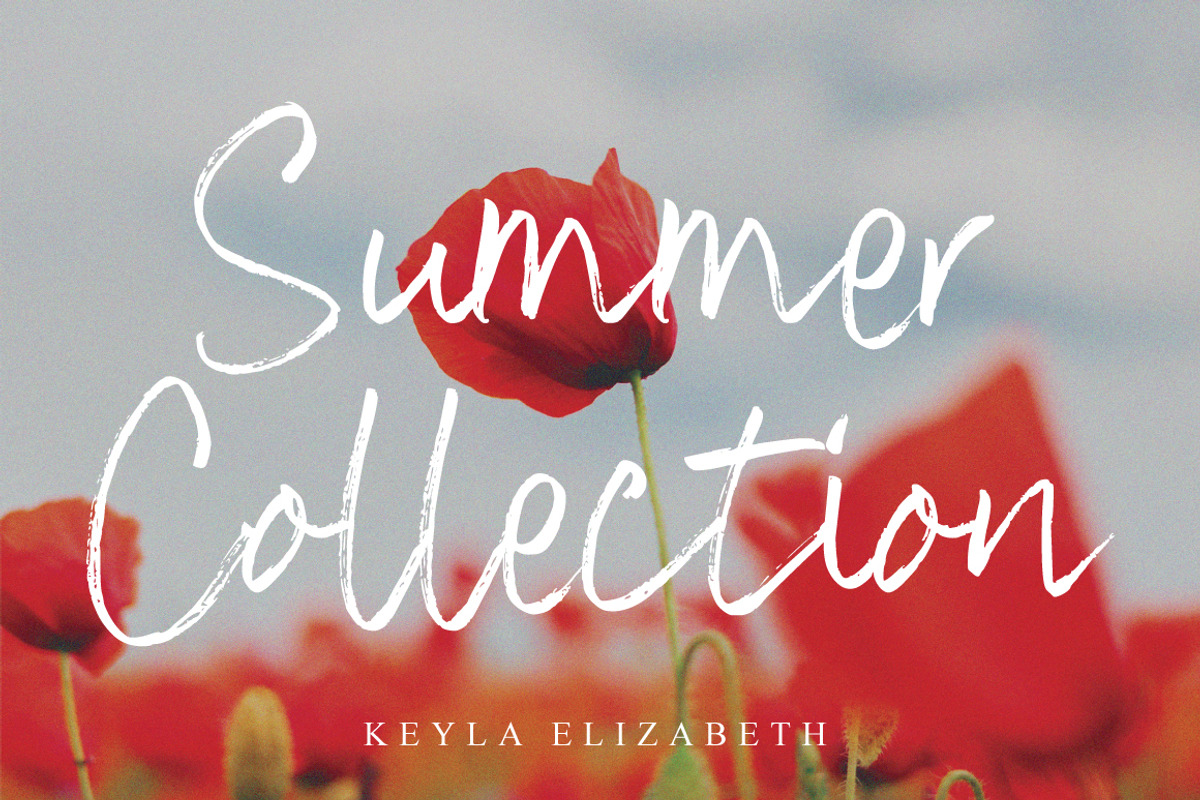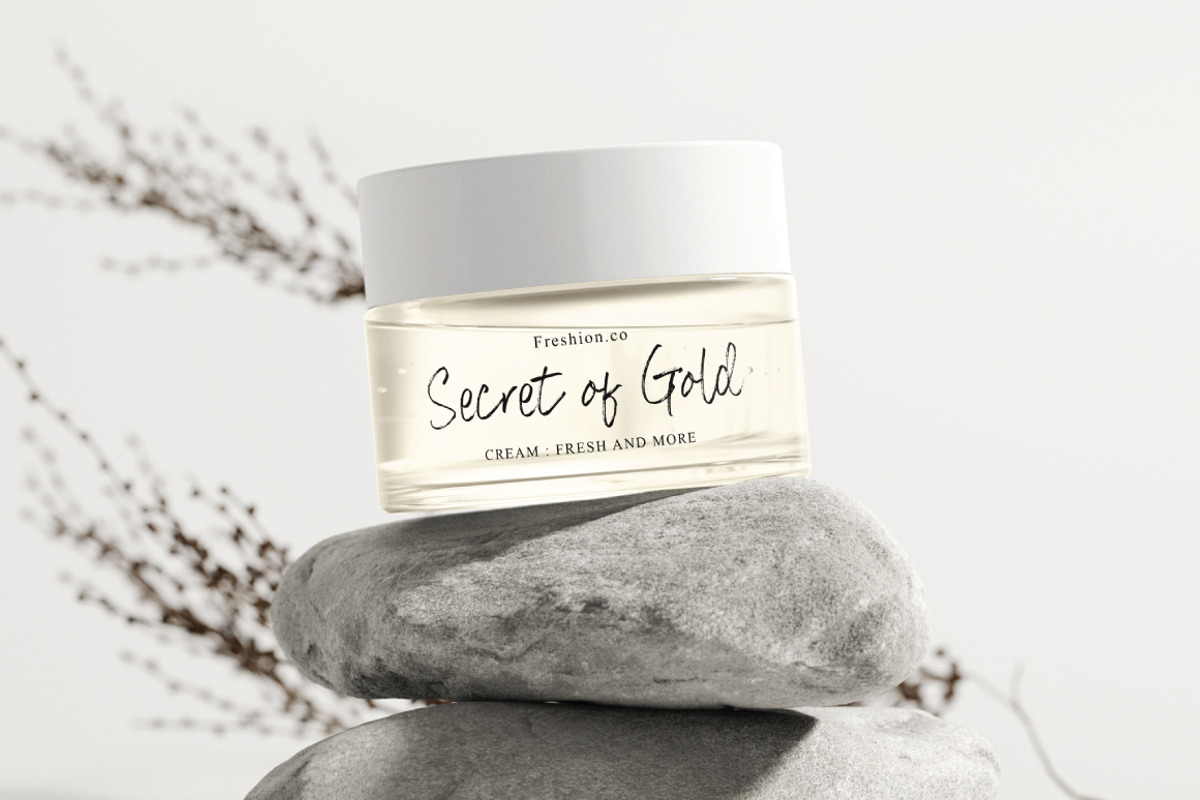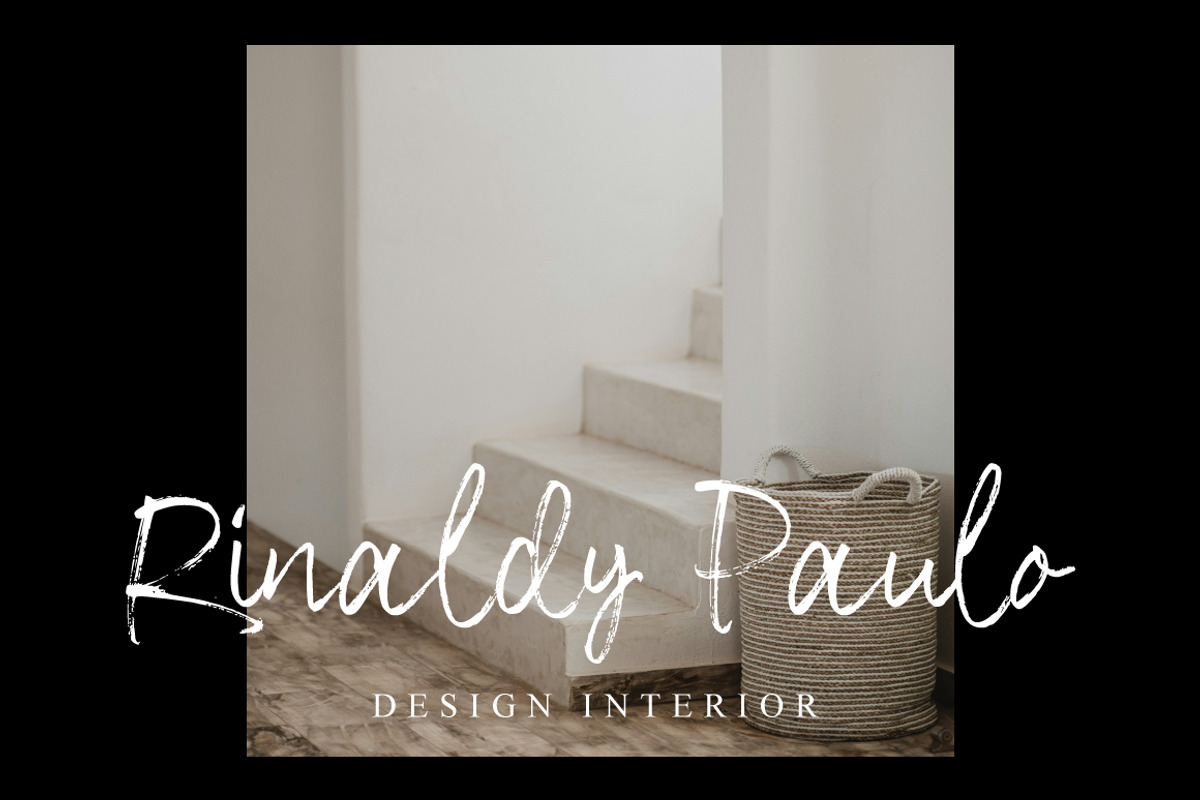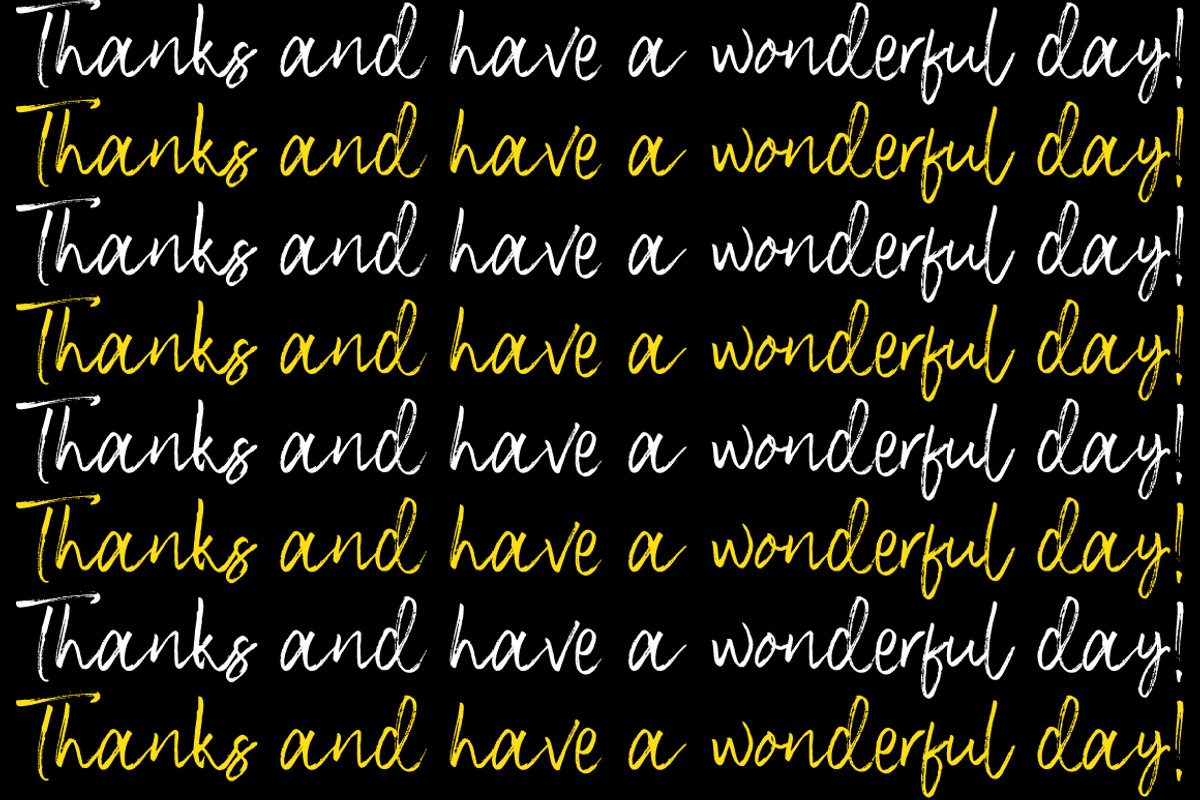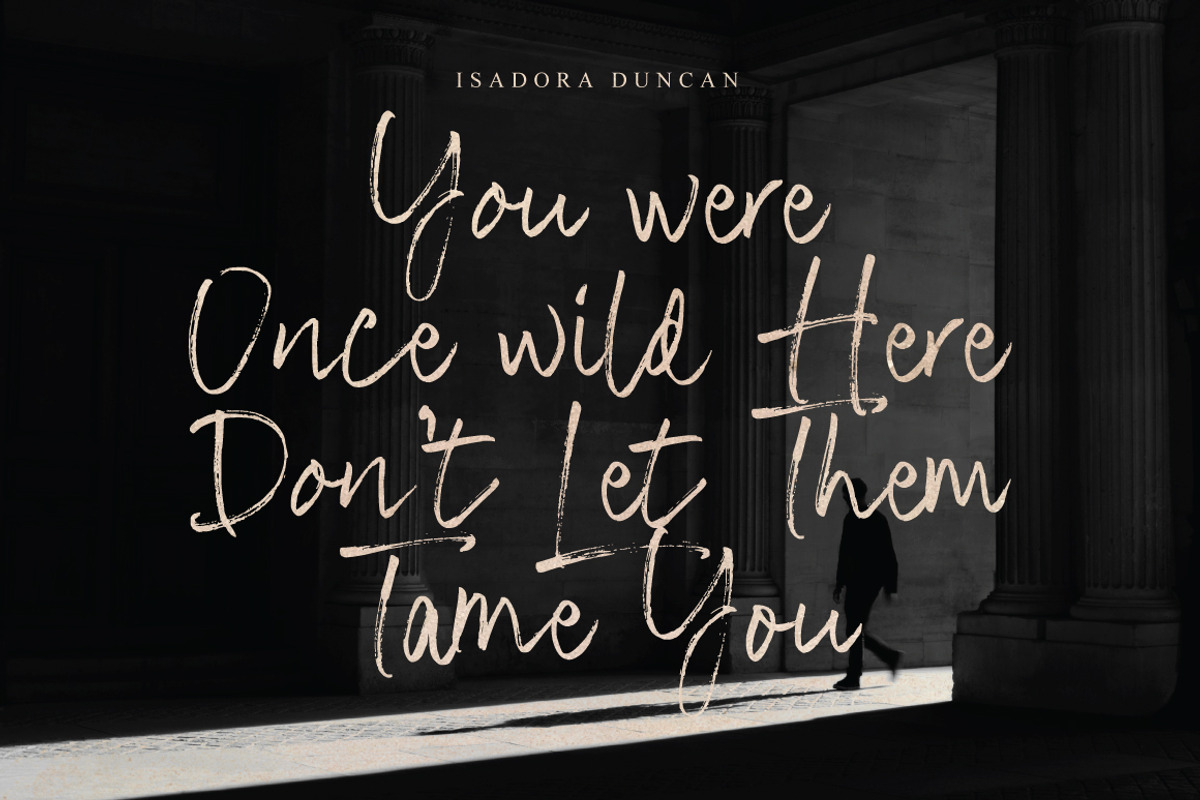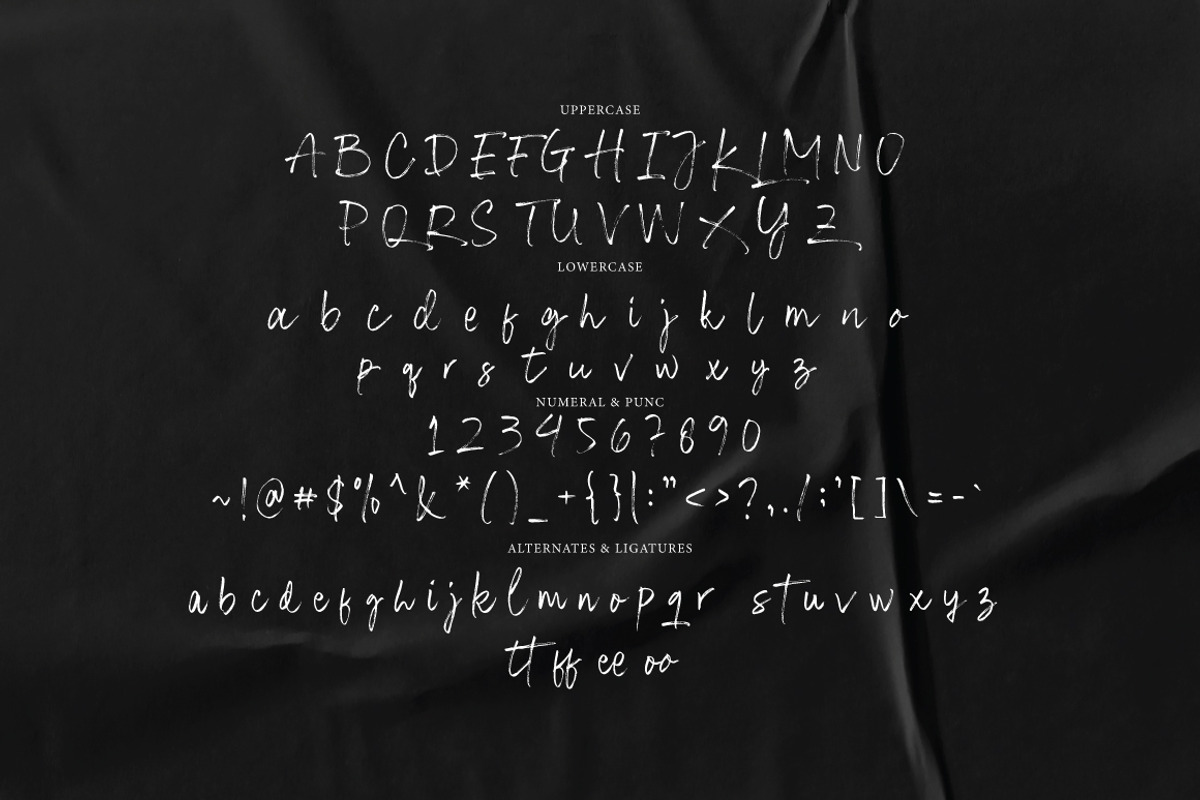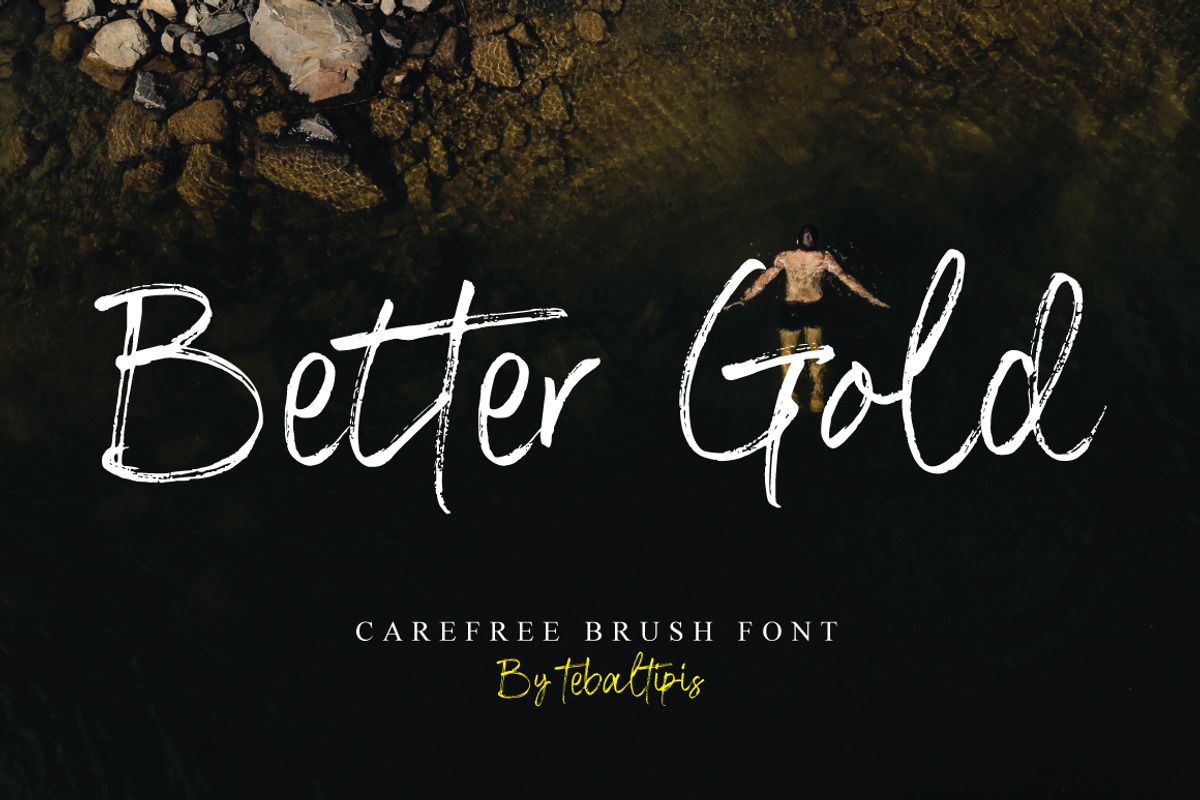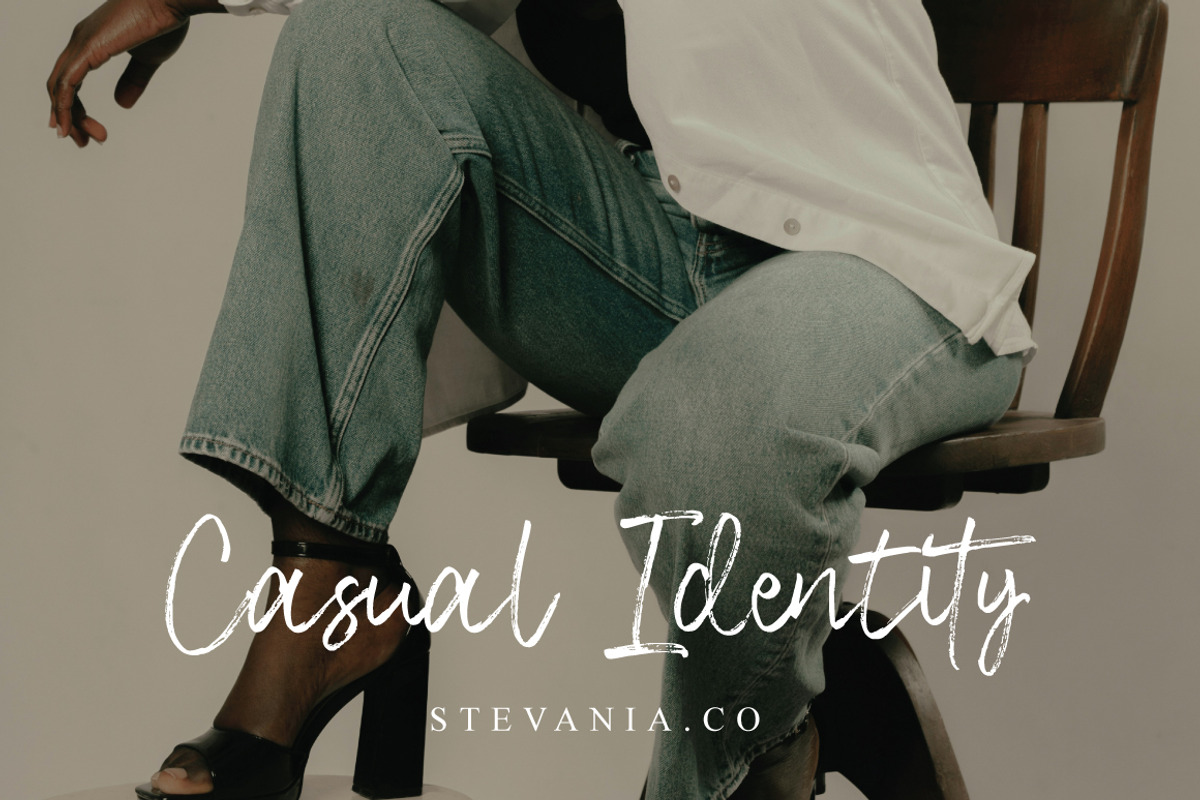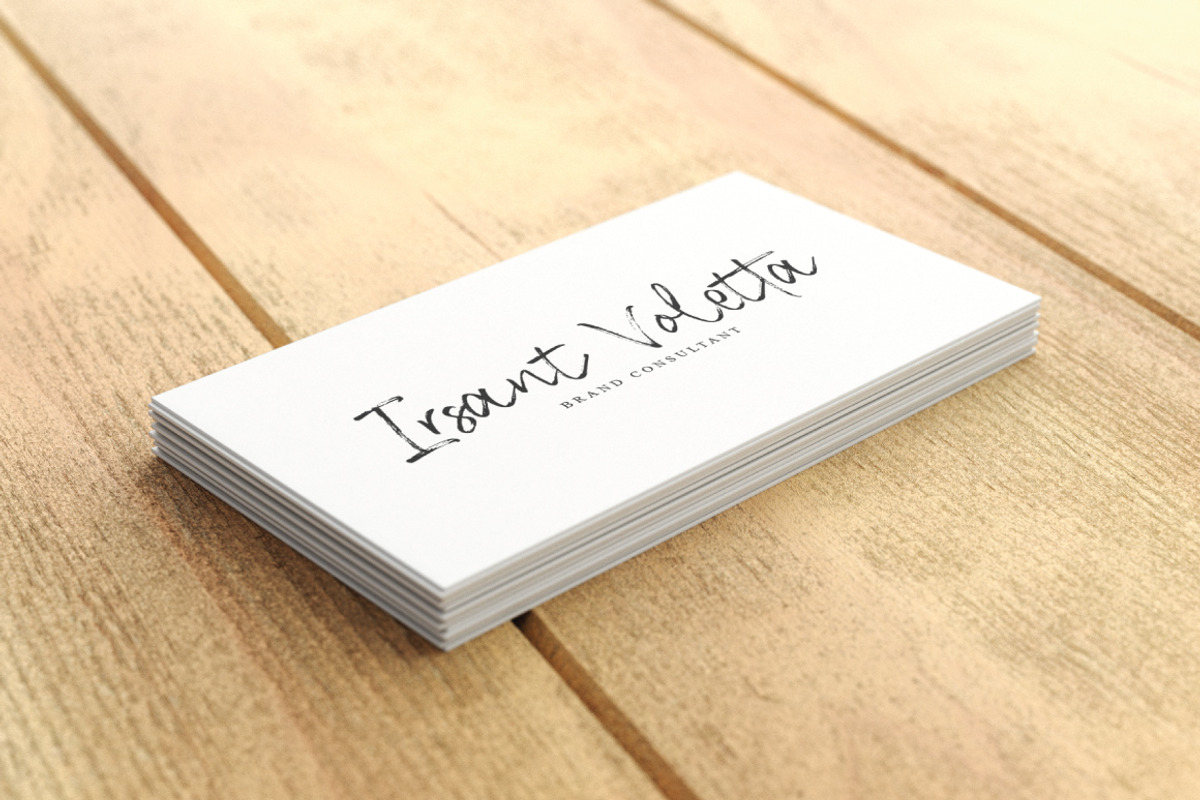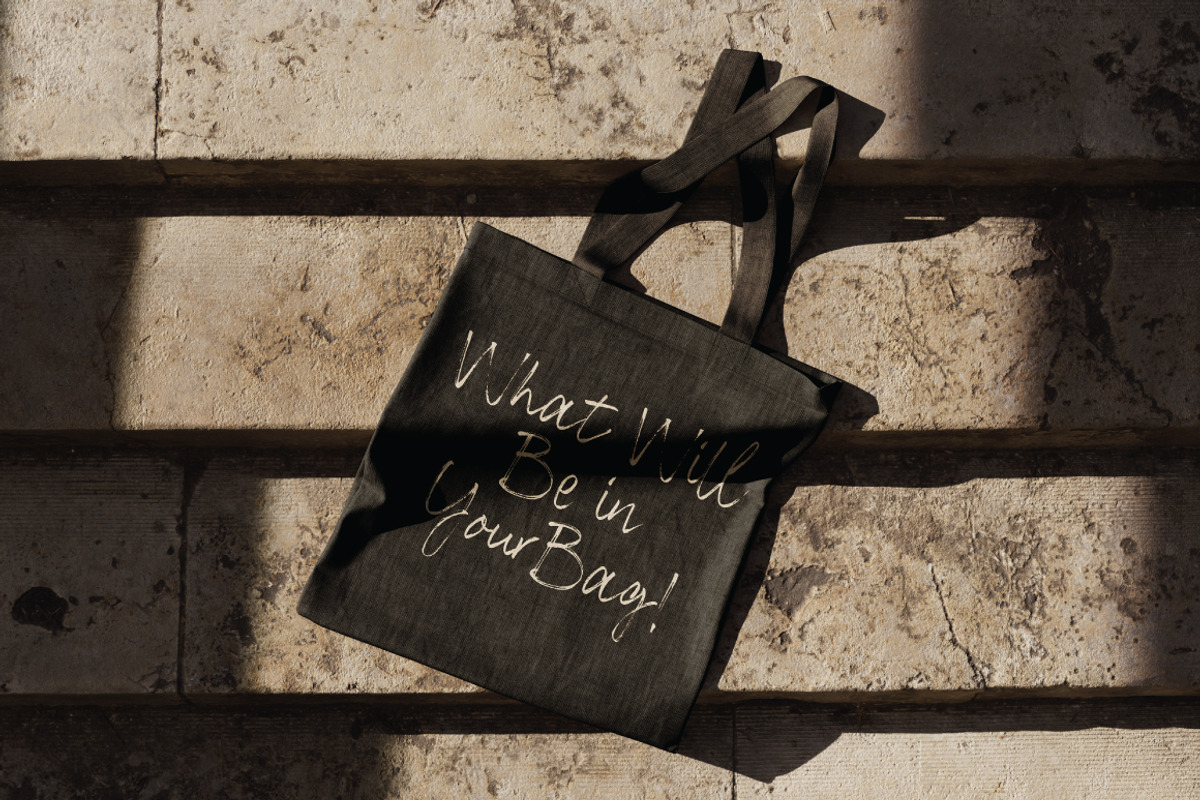
Better Gold - Carefree Brush
Better Gold Brush – Carefree Brush Font Better Gold Brush is a charming and expressive brush font designed to bring a sense of warmth and spontaneity to your creative projects. With its natural brush strokes and hand-drawn feel, this font is perfect for branding, packaging, social media graphics, and handwritten quotes. Created by Tebaltipis, Better Gold Brush blends casual elegance with a playful attitude, making it ideal for designs that need a personal and authentic touch.
Rough/Brushed Texture: A “dirty” and textural effect, as if ink or paint has blended into the surface, enhancing the organic and warm feel.
Visual Affirmation: The capital letters have uneven thickness and tapered edges, providing an interesting visual dynamic.
Subtle Typography: The tagline below “Better Gold Brush” is written in thin letters, as if written with a small brush—balancing the visual power of the main title with the subtlety of the supporting typography.
Overall, this font exudes a playful, artisanal, and carefree aura, perfect for designs that require a touch of authenticity and personal expression—such as handmade product labels or creative branding.